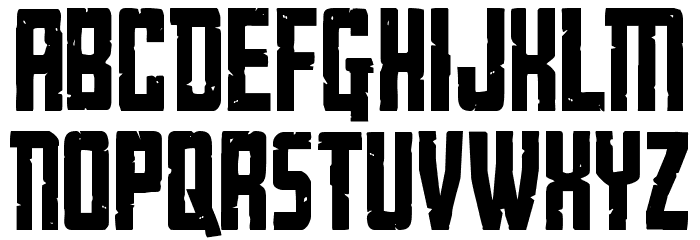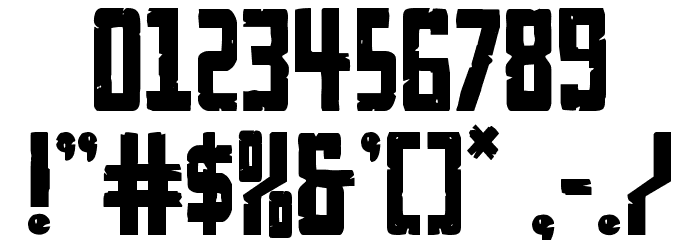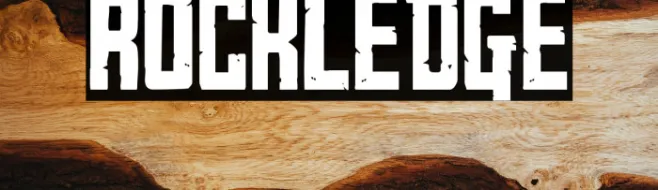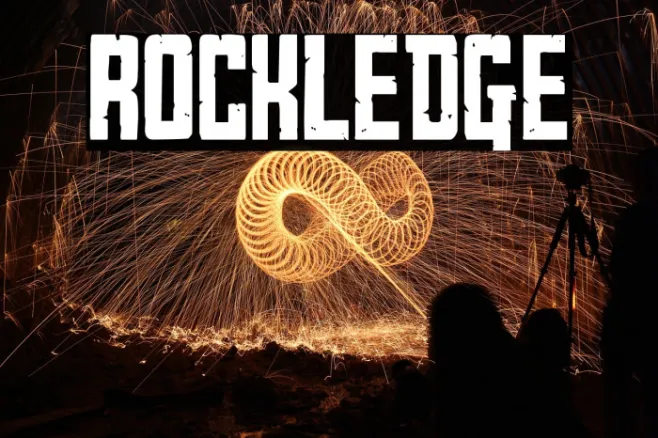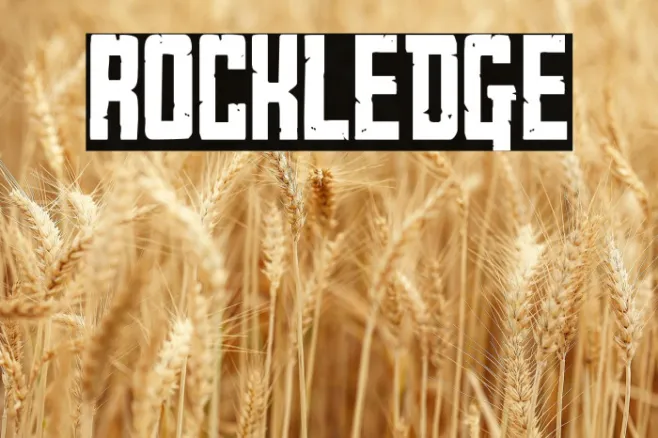
Rockledge Font
This font features a bold, rugged design with a distressed texture that gives it a vintage, worn look. The characters are blocky and robust, with sharp angles and a strong presence. The uppercase and lowercase letters maintain a consistent style, emphasizing a sense of strength and durability. The numbers and special characters follow the same aesthetic, making the font suitable for projects that require a bold statement. The distressed effect adds character and a touch of nostalgia, making it ideal for designs that aim to evoke a sense of history or toughness.
A bold, distressed font with a rugged, vintage appearance.
- Proposed Projects: Ideal for posters, logos, branding, and any design requiring a strong, vintage feel.
- Overall Style: Vintage